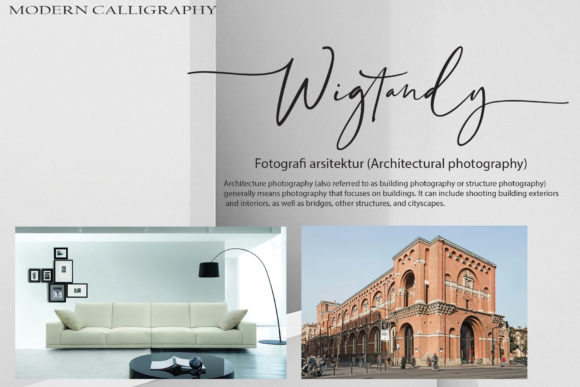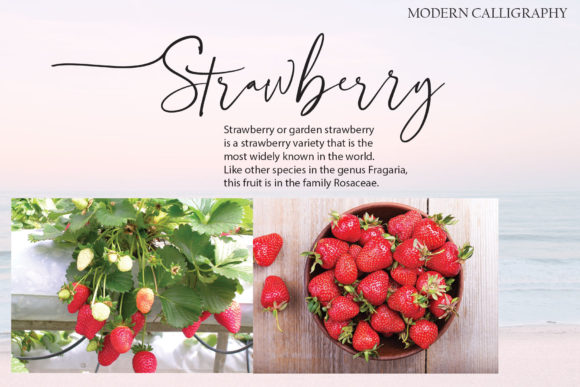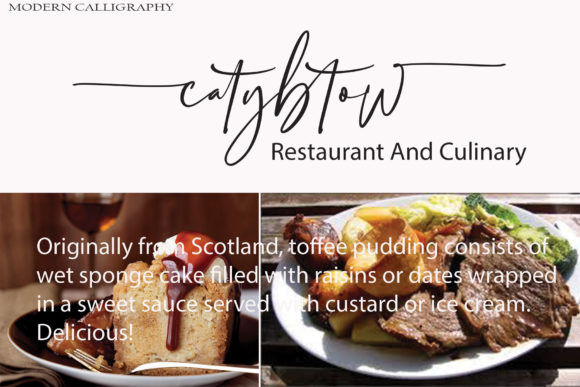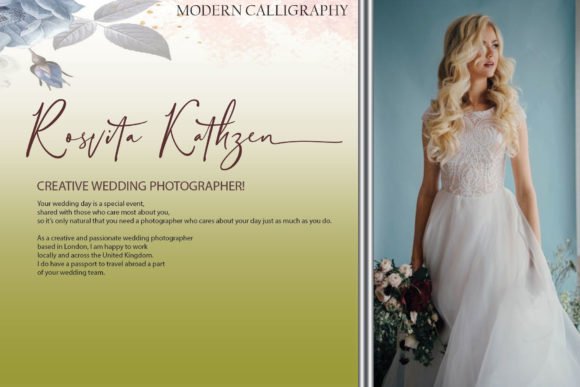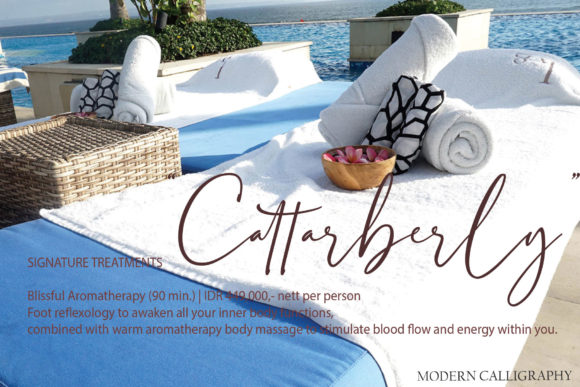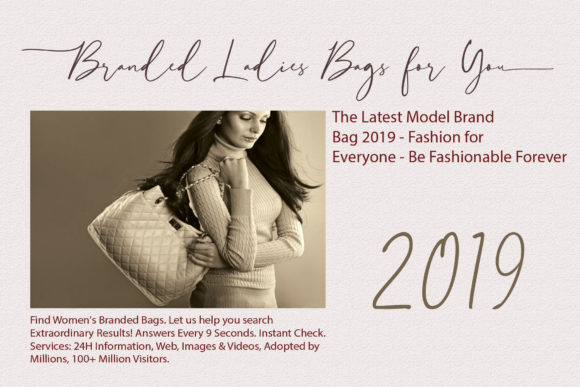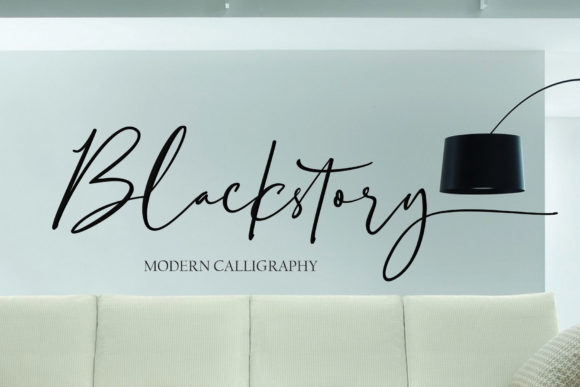
Introducing Blackstory Font: The Bold and Charming Script for Confident Messaging
In the world of typography, fonts play a crucial role in conveying messages and setting the tone for a brand or design. For designers and crafters, finding the perfect font can be a daunting task, but today, we’re excited to introduce you to Blackstory Font, an incredibly bold and charming script that will deliver any message with confidence and style.
The Story Behind Blackstory Font
Blackstory Font is a unique and modern script that has been carefully crafted to make a statement. Its bold and charming design makes it perfect for a wide range of applications, from branding and advertising to packaging and digital media. The font’s creator aimed to design a typeface that would exude confidence and style, and we believe they’ve succeeded.
Key Features of Blackstory Font
- Bold and Charming Design: Blackstory Font boasts a bold and charming design that is sure to grab attention. Its unique letterforms and flowing lines make it a standout in any design.
- Highly Legible: Despite its bold design, Blackstory Font is highly legible, making it perfect for use in a variety of contexts, from large headlines to smaller body text.
- Versatile: Blackstory Font is incredibly versatile, making it suitable for use in a wide range of applications, from digital media to print materials.
- Easily Customizable: The font is easily customizable, allowing designers to tailor it to their specific needs and preferences.
Use Cases for Blackstory Font
Blackstory Font is an incredibly versatile typeface that can be used in a wide range of applications. Here are some use cases where Blackstory Font truly shines:
- Branding and Advertising: Use Blackstory Font to create bold and eye-catching logos, taglines, and ad campaigns that demand attention.
- Packaging Design: Add a touch of elegance and sophistication to your packaging designs with Blackstory Font.
- Digital Media: Use Blackstory Font to create stunning social media graphics, blog posts, and website headers that showcase your brand’s personality.
- Print Materials: From business cards to billboards, Blackstory Font is perfect for a wide range of print materials.
Why Choose Blackstory Font?
With so many fonts available, why choose Blackstory Font? Here are just a few reasons why Blackstory Font stands out from the crowd:
- Unique Design: Blackstory Font boasts a unique and modern design that will set your brand or design apart from the competition.
- High-Quality Typography: The font is crafted with attention to detail, ensuring high-quality typography that will elevate your designs.
- Easy to Use: Blackstory Font is incredibly easy to use, making it perfect for designers of all skill levels.
In conclusion, Blackstory Font is an incredibly bold and charming script that will deliver any message with confidence and style. Its unique design, high legibility, and versatility make it perfect for a wide range of applications. Whether you’re a designer or crafter, Blackstory Font is a must-have in your typography arsenal. So why wait? Give Blackstory Font a try today and take your designs to the next level!